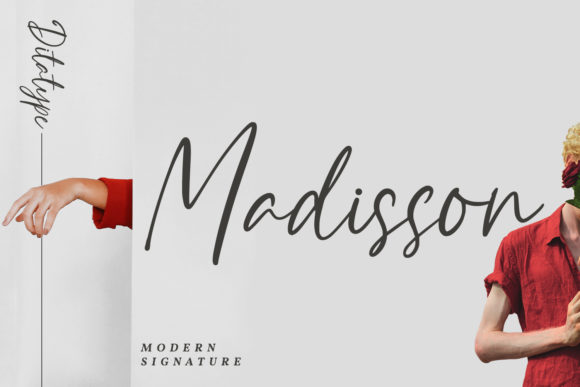
Introducing Madisson Font: The Epitome of Elegance and Charm in the World of Typography
In a world saturated with digital communication, the art of handwritten letters stands out as a beacon of authenticity and heartfelt connection. Madisson Font, a captivating script font from the creative minds at Ditatype, captures the essence of this timeless tradition, inviting you to imbue your written expressions with a touch of elegance and charm.
Madisson Font: A Symphony of Romantic Curves and Delicate Strokes
Madisson Font's enchanting allure lies in its intricate web of curves and delicate strokes, reminiscent of a love letter penned with utmost care and devotion. Each character dances across the page with a graceful fluidity, evoking emotions that transcend mere words. Whether you're crafting a heartfelt message to a loved one, designing an intimate wedding invitation, or creating bespoke stationary art, Madisson Font becomes your artistic partner, transforming ordinary text into an extraordinary visual masterpiece.
Experience the Versatility of Madisson Font: From Rustic Charm to Modern Chic
With its inherent versatility, Madisson Font effortlessly adapts to a myriad of design aesthetics, seamlessly blending with both rustic and contemporary styles. Imagine the warmth it brings to a handwritten wedding vow, the sophistication it lends to a business proposal, or the playful charm it adds to a social media post. The possibilities are boundless, limited only by the depths of your creativity.
Madisson Font: A Timeless Treasure for Designers, Crafters, and Creative Visionaries
For designers, Madisson Font unlocks a treasure trove of opportunities to create stunning visuals that captivate audiences. Its elegant flourishes add a touch of refinement to logos, branding materials, and website designs. Crafters will find Madisson Font to be an indispensable tool for personalizing handmade cards, invitations, and other papercraft projects, transforming them into cherished keepsakes. And for creative visionaries seeking a font that reflects their unique style, Madisson Font stands ready to serve as their trusted companion.
Discover the Beauty of Madisson Font: A Love Letter to Typography
Madisson Font is more than just a font; it's an artistic expression that speaks to the heart. Its delicate lines and graceful curves invite you to slow down, to savor the beauty of each letterform, and to pour your emotions into every word you write. With Madisson Font, you'll rediscover the joy of handwritten correspondence, the art of expressing yourself with a pen and paper.